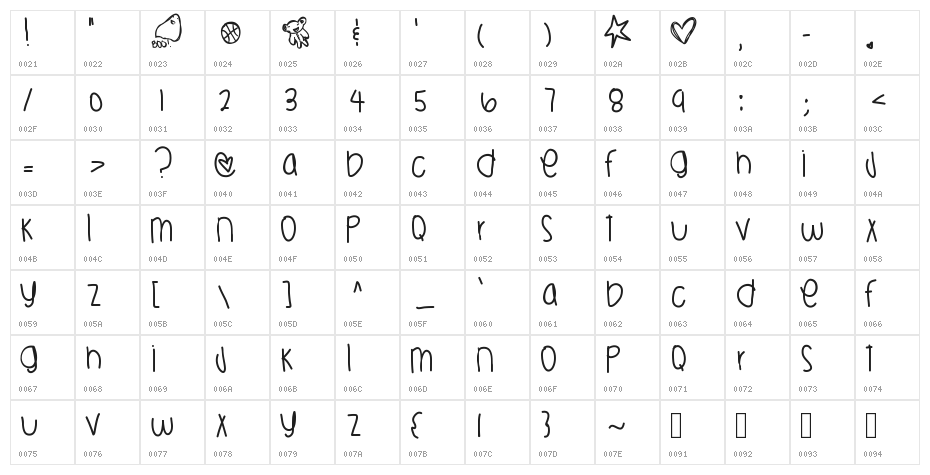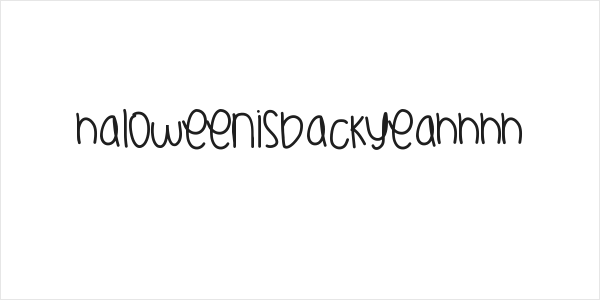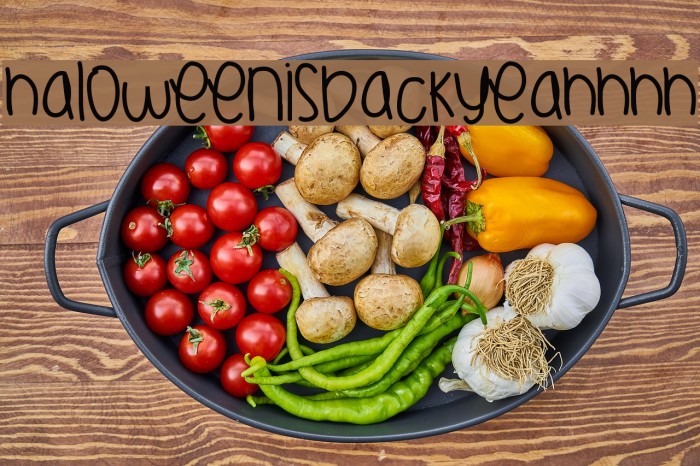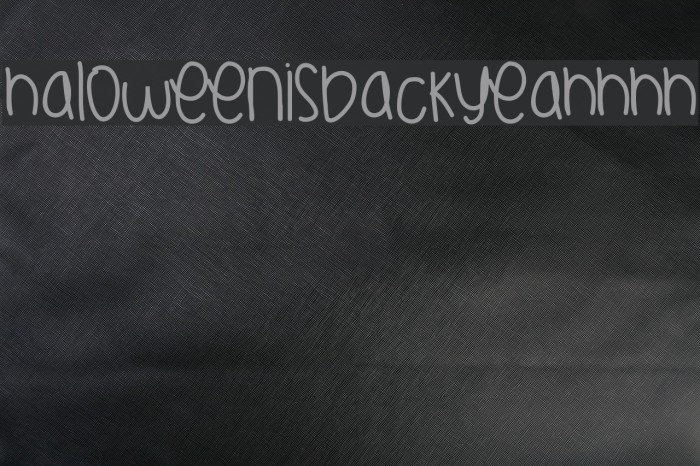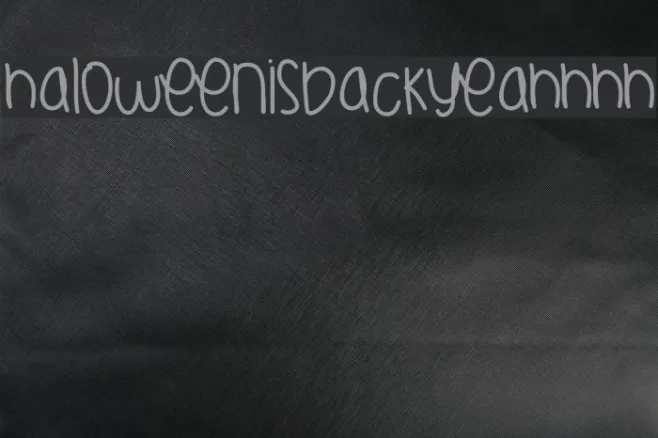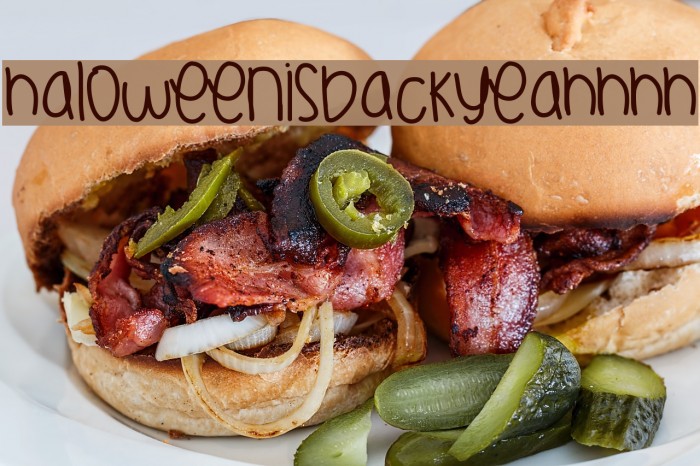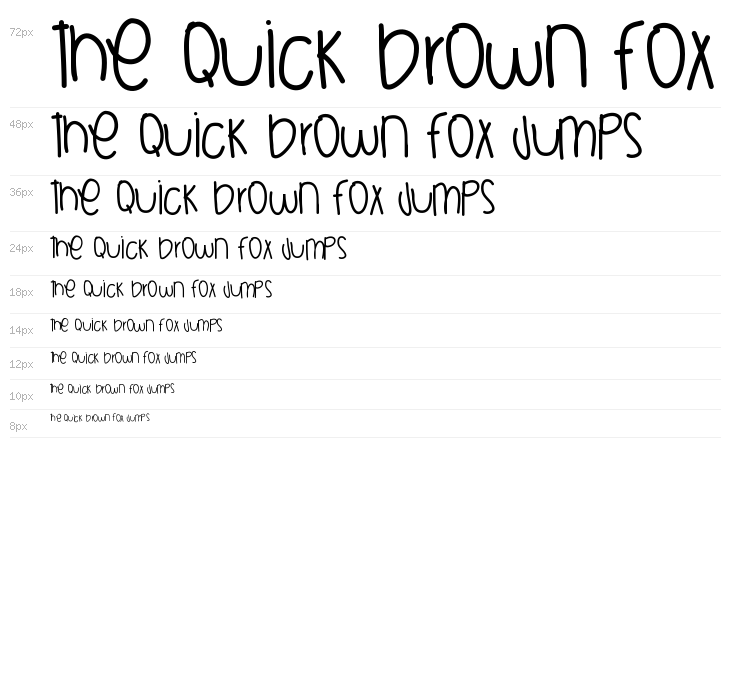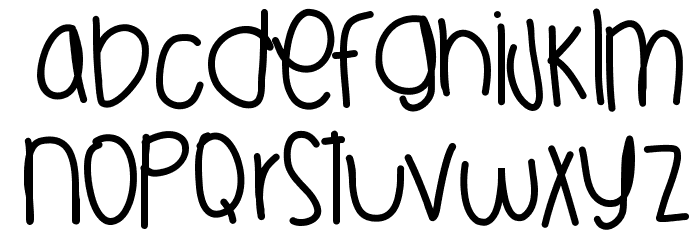
HaloweenIsBackYeahhhh Font
HaloweenIsBackYeahhhh Description
This playful and whimsical font features a handwritten style with a casual, friendly appearance. The letters are slightly irregular, adding to the charm and informal feel. The characters are rounded and smooth, with a consistent stroke width that maintains readability. The font includes both uppercase and lowercase letters, numbers, and a variety of special characters, making it versatile for different uses. Its unique style is perfect for projects that require a personal touch or a fun, lighthearted vibe.
| Proposed Projects | Ideal for children's books, greeting cards, playful branding, and social media graphics. |